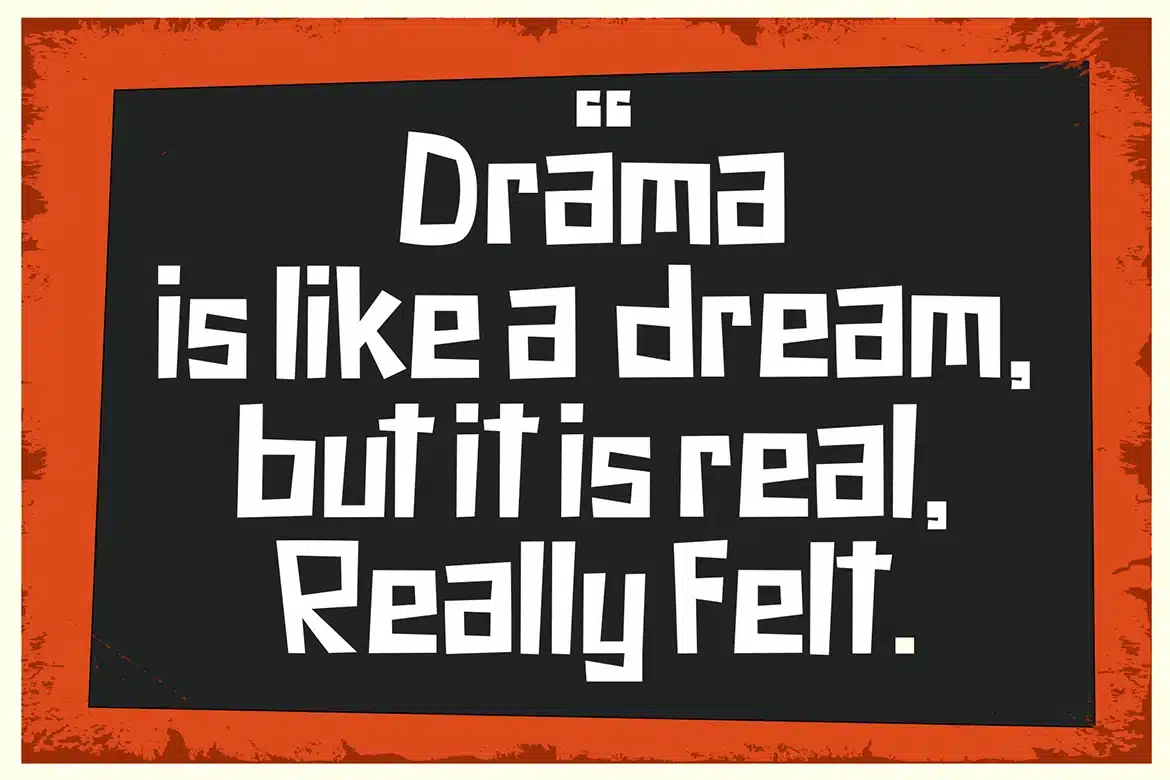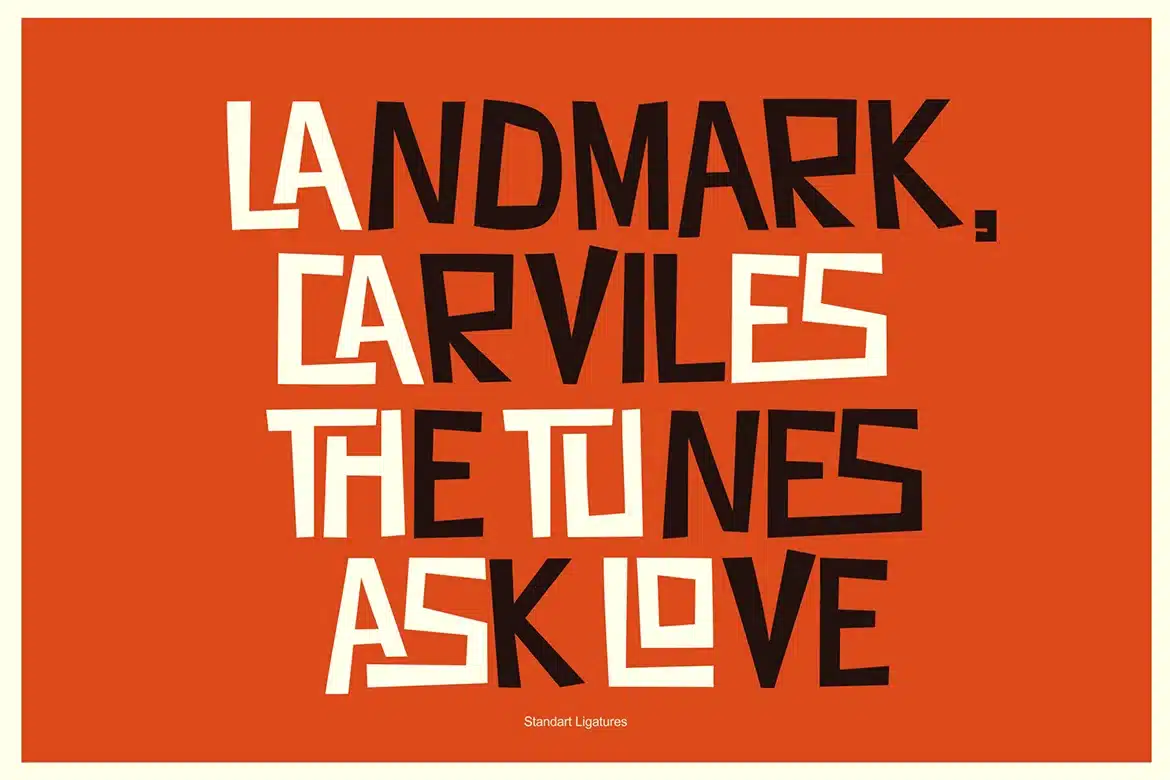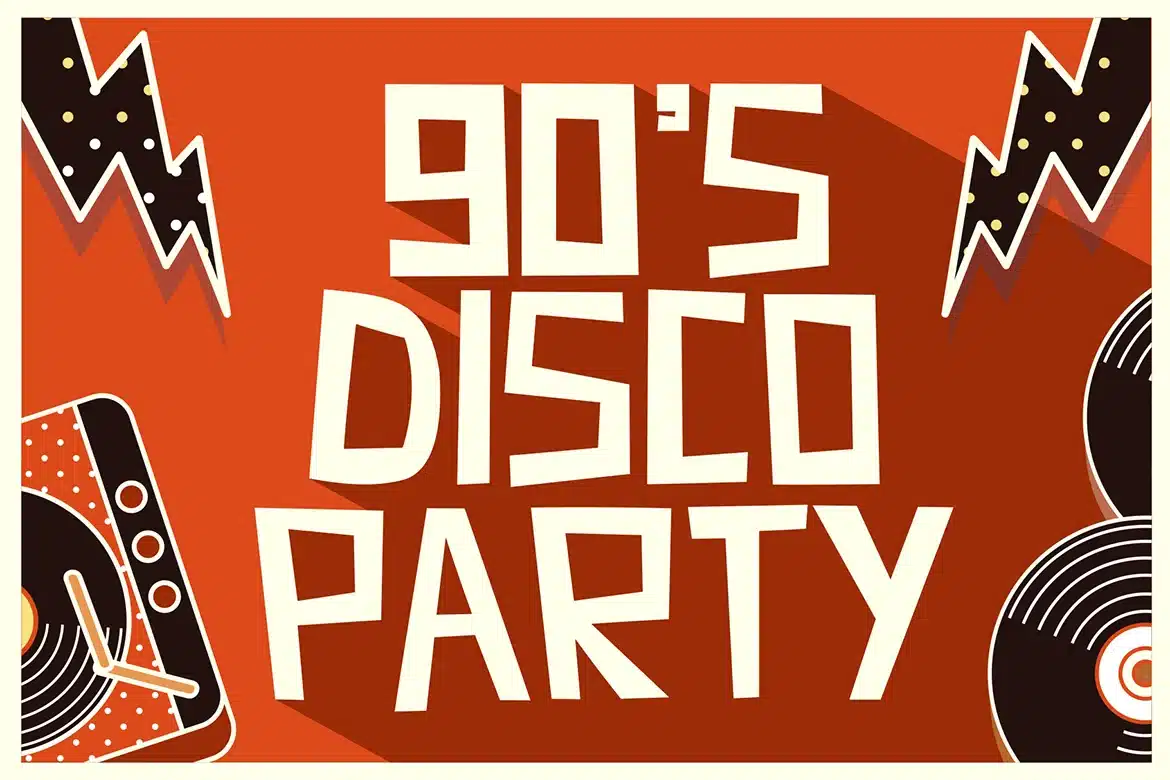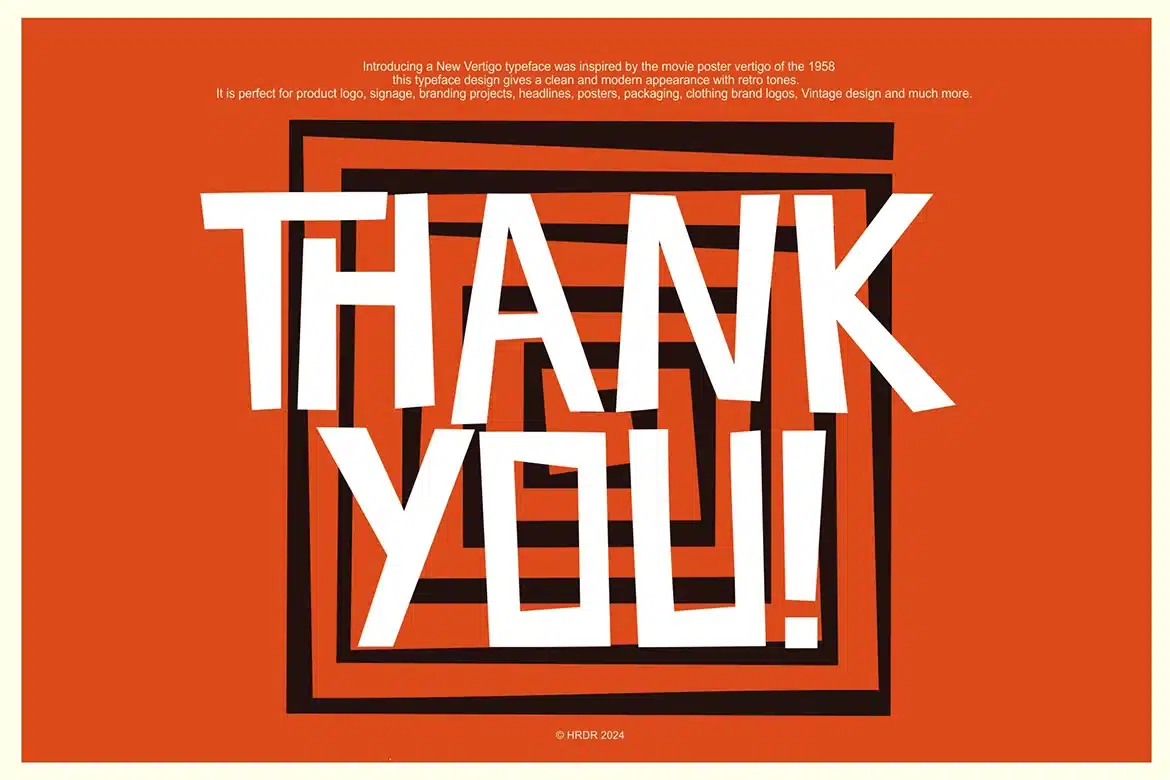
New Vertigo Typeface Font
Introducing a New Vertigo Typeface was inspired by the movie poster Vertigo of the 1958, this typeface appearance look a classic tones and simple.
It is perfect for product logo, magazine, branding projects, headlines, movie posters, packaging, clothing brand logos, Vintage design and much more.
New Vertigo Features:
- Uppercase And Lowercase
- Accented characters